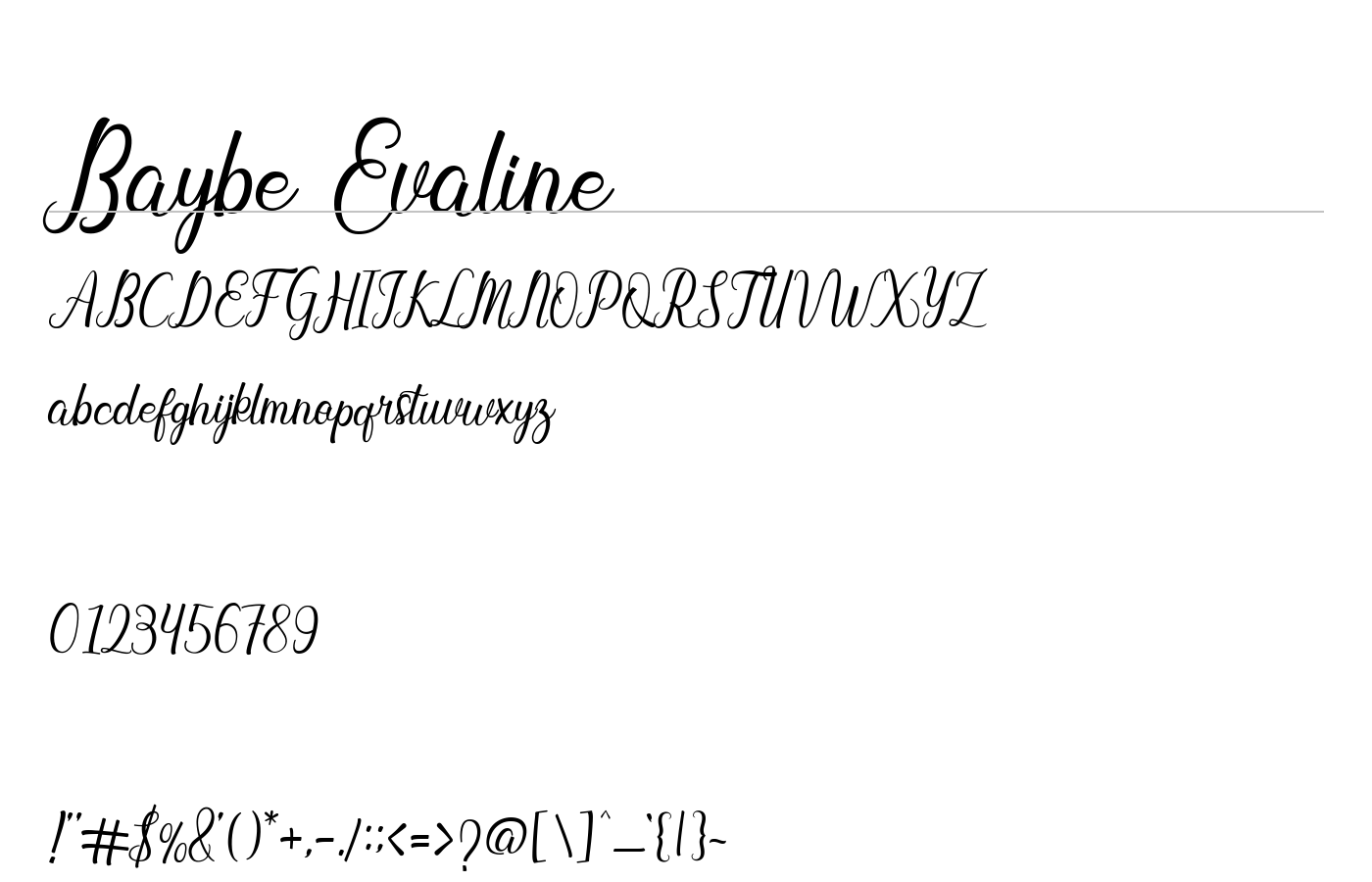
Baybe Evaline is an elegant script font with slender, flowing letterforms that evoke a sense of sophistication and grace. Its narrow, calligraphic style with delicate strokes and smooth curves makes it perfect for stylish branding, invitations, and feminine designs where a refined, personal touch is desired. This font works especially well in headlines and logos where an artistic, handwritten feel is needed to convey charm and elegance.
Baybe Evaline Font